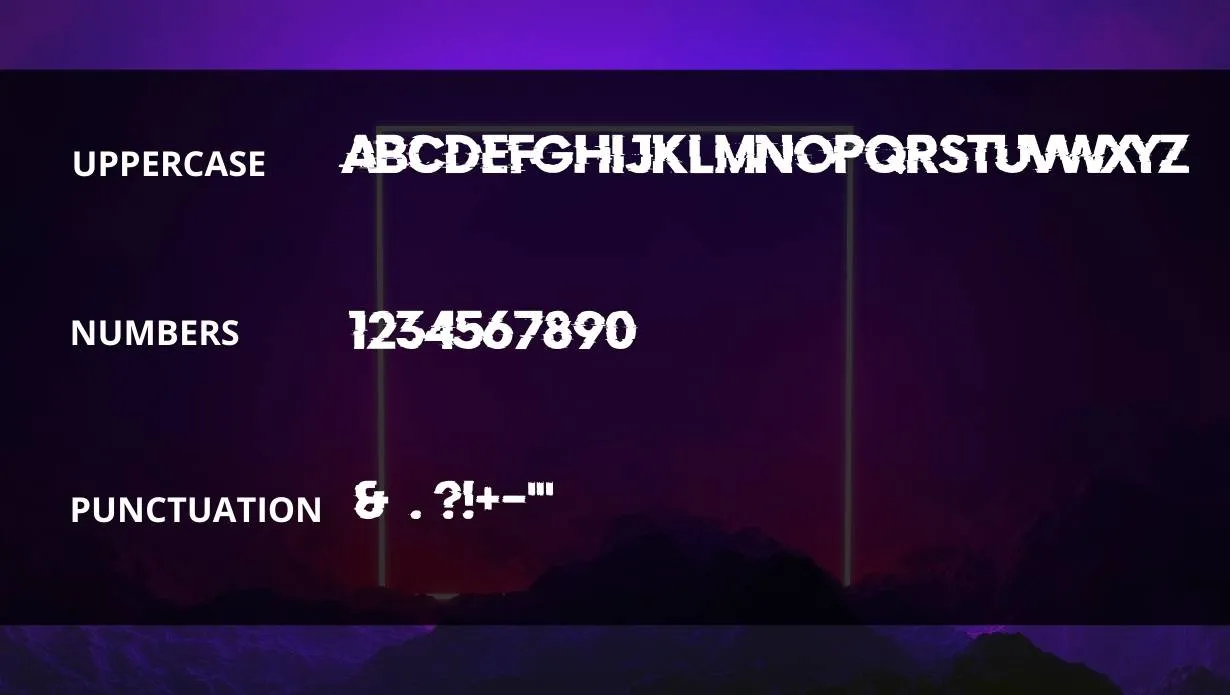
Doctor Glitch Font is a typeface that was designed by Jim Lyles in 1992. The font is best known for its use in the Doctor Who title sequence from 2005 to 2010.
This Font was created by Jim Lyles, who is also responsible for the design of other well-known fonts such as Arial Black and Comic Sans MS.
The style of typeface is much similar to the fibre font with the same connected letterforms and high-quality graphics you can try for your valuable designs.
View of Doctor Glitch Font